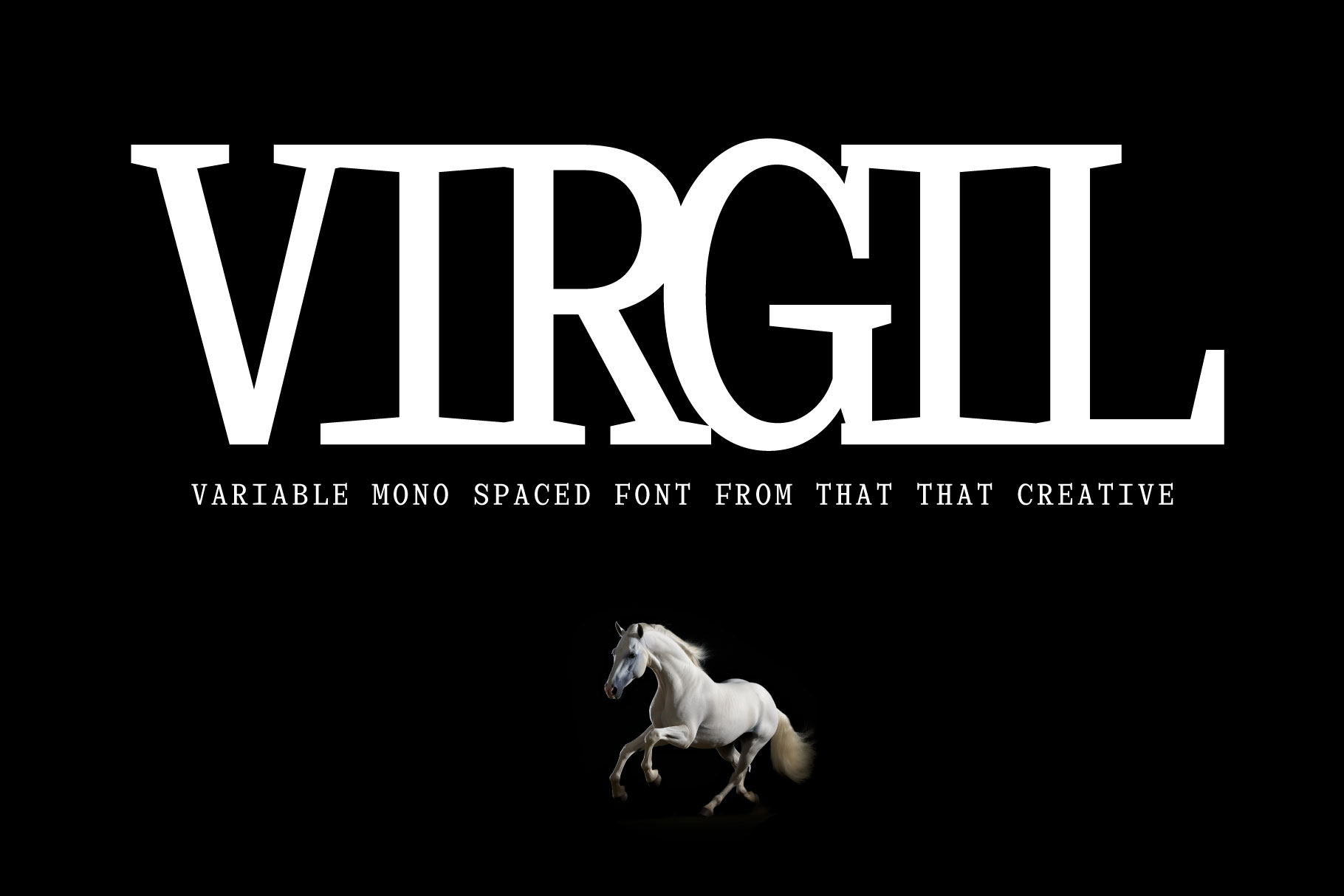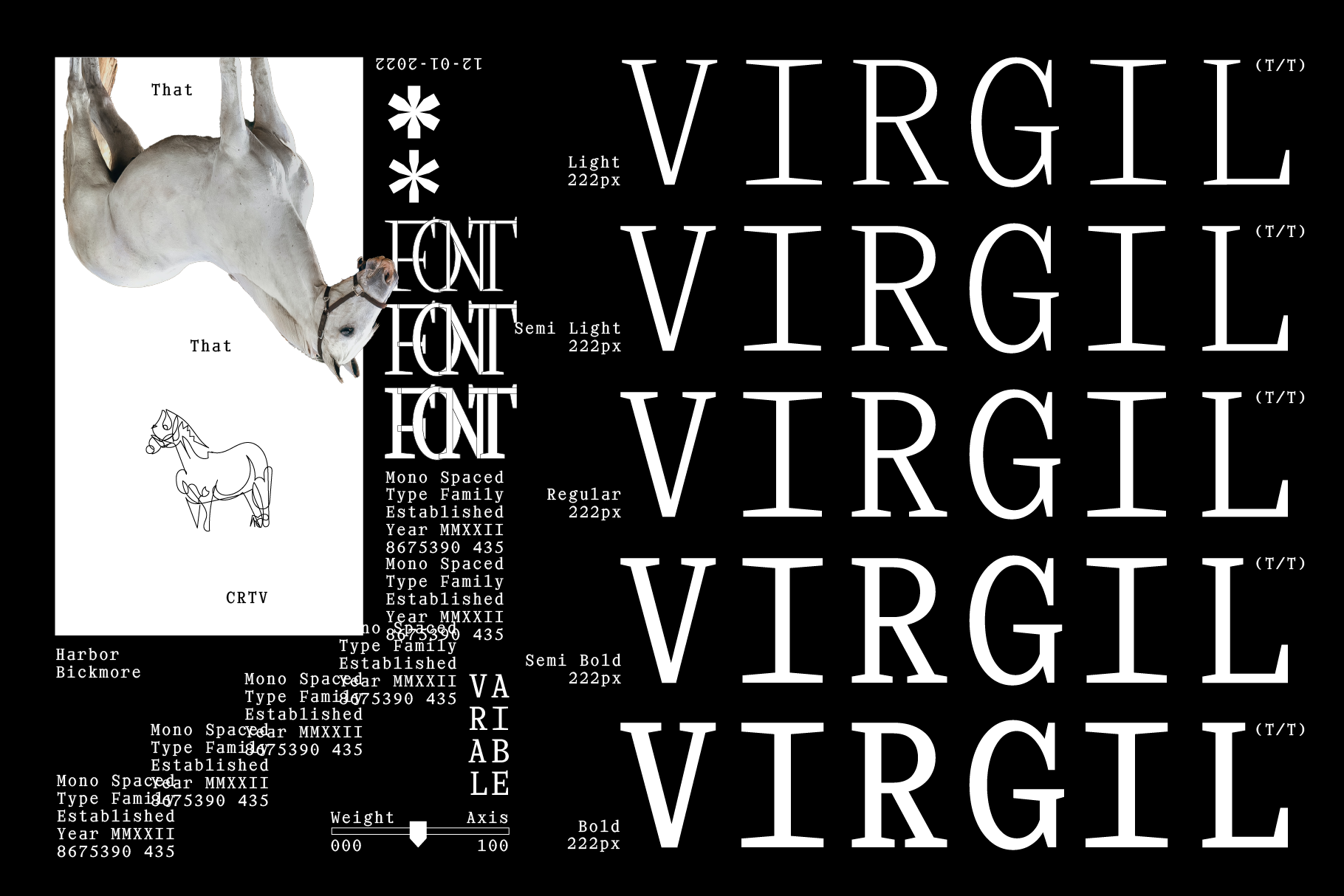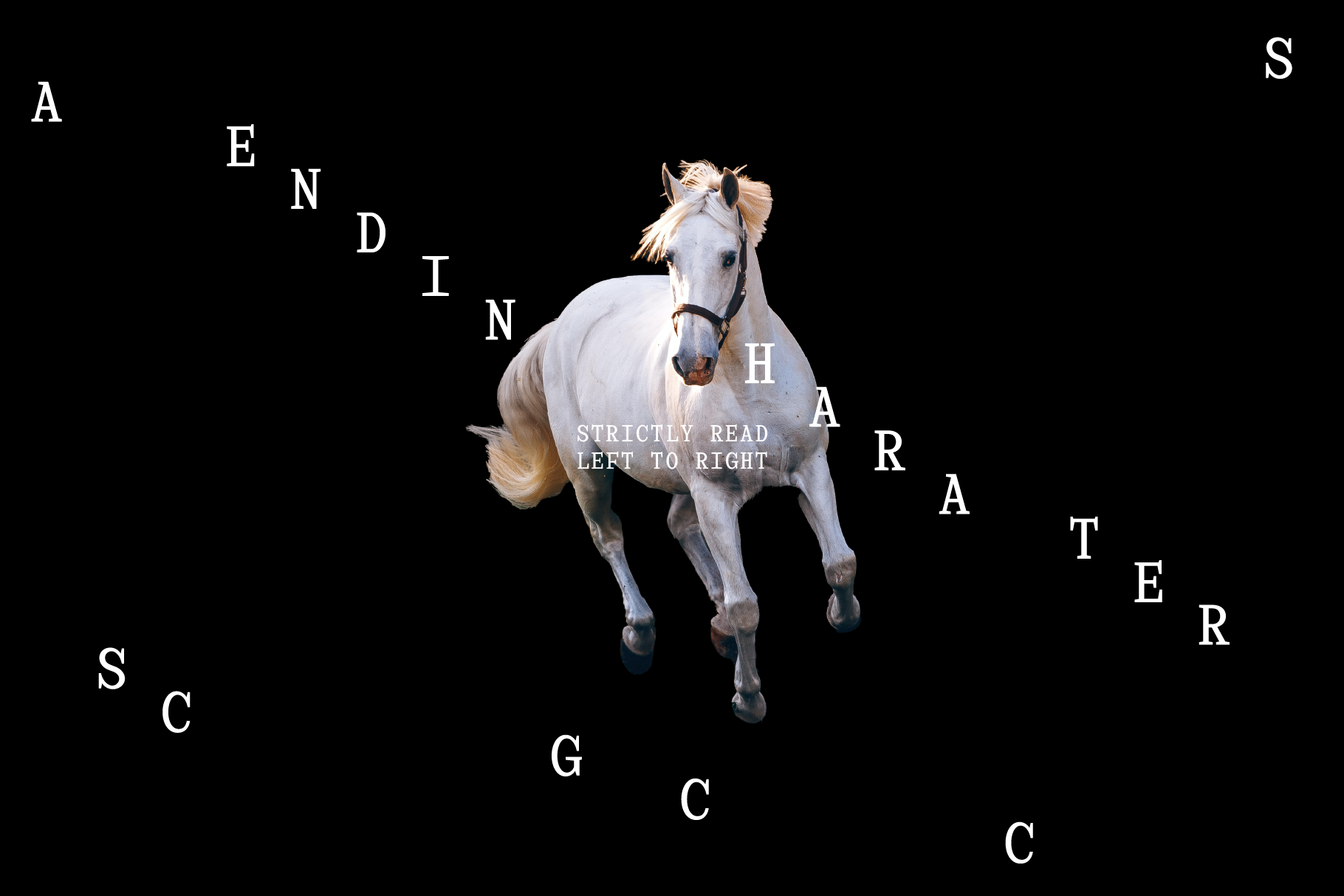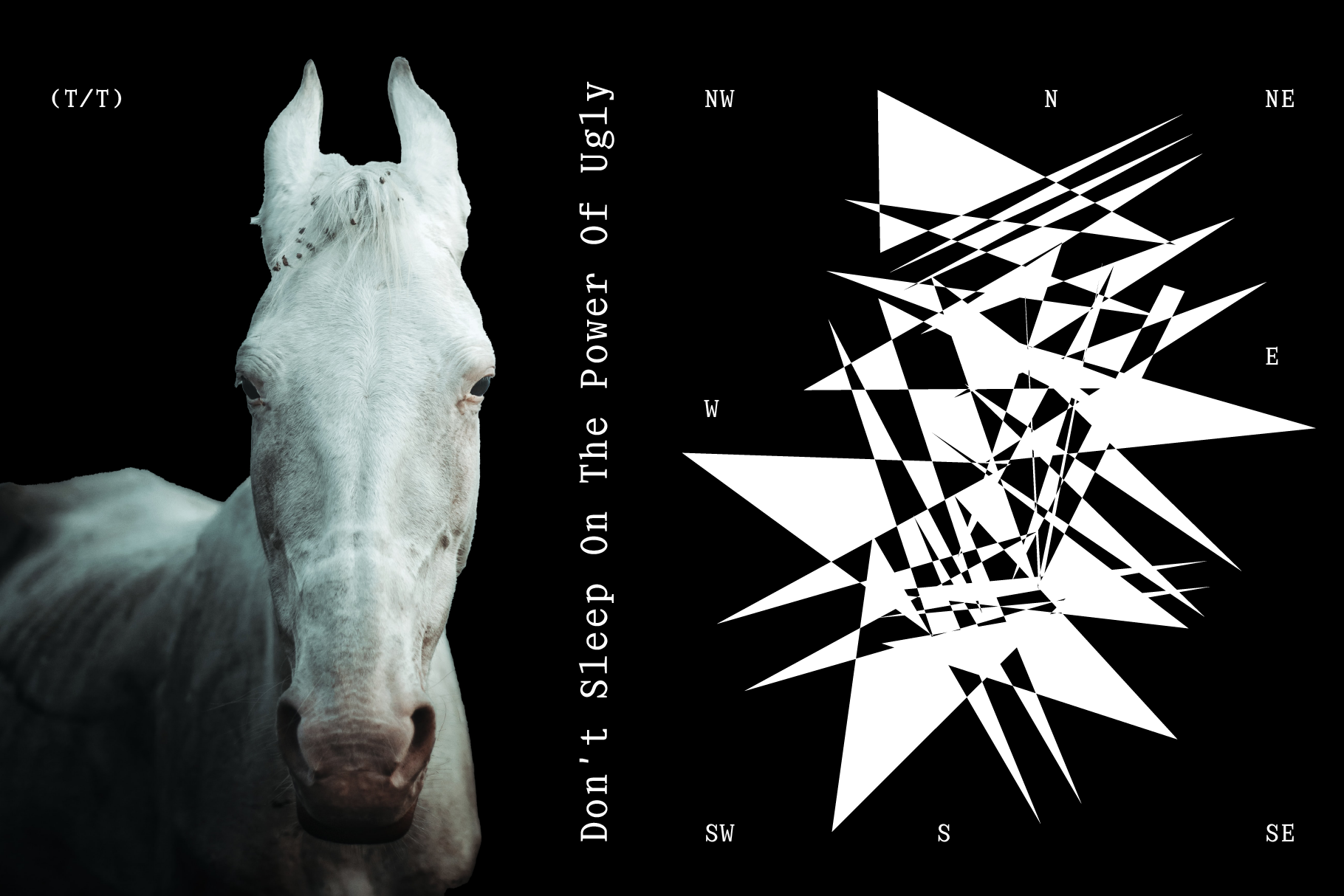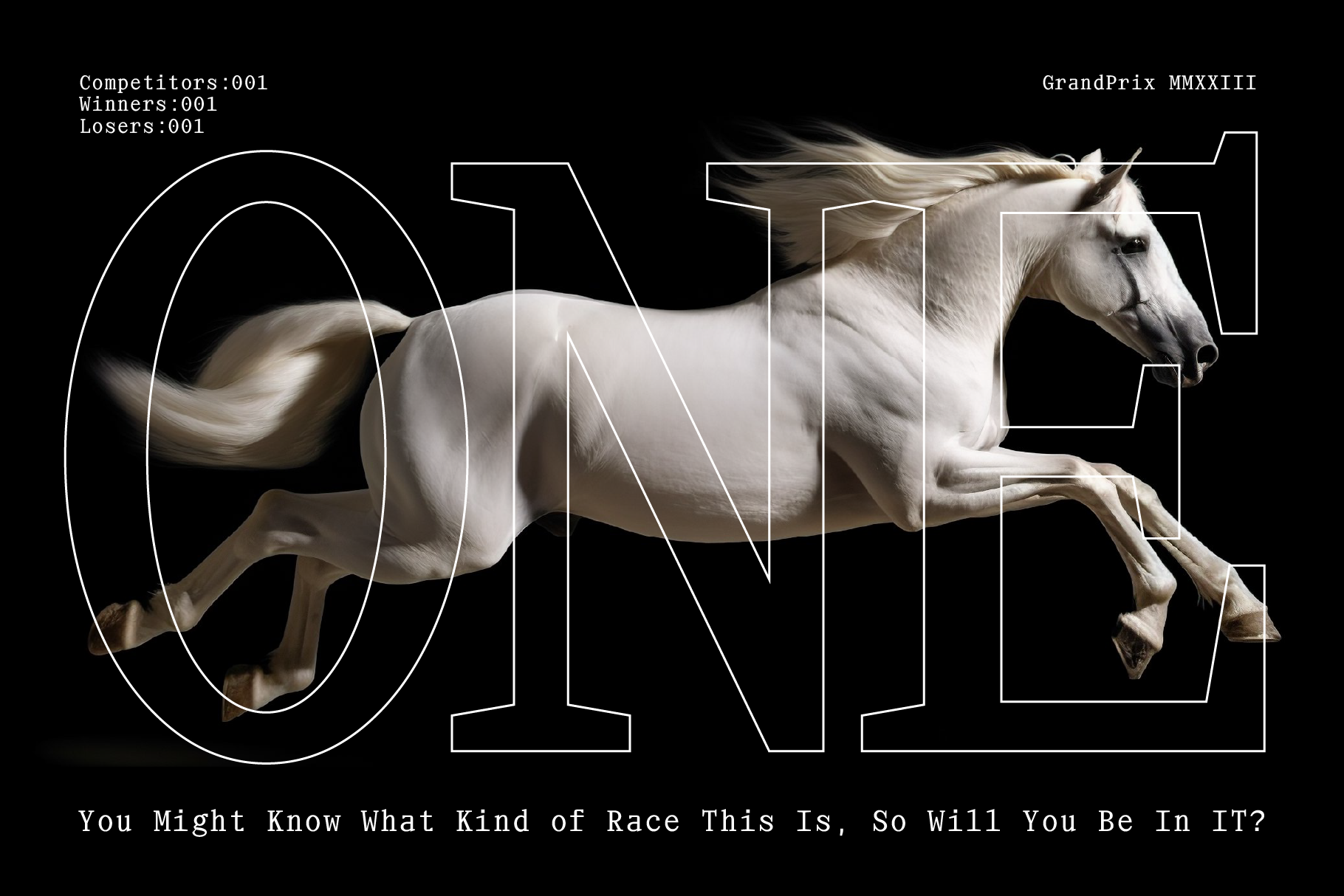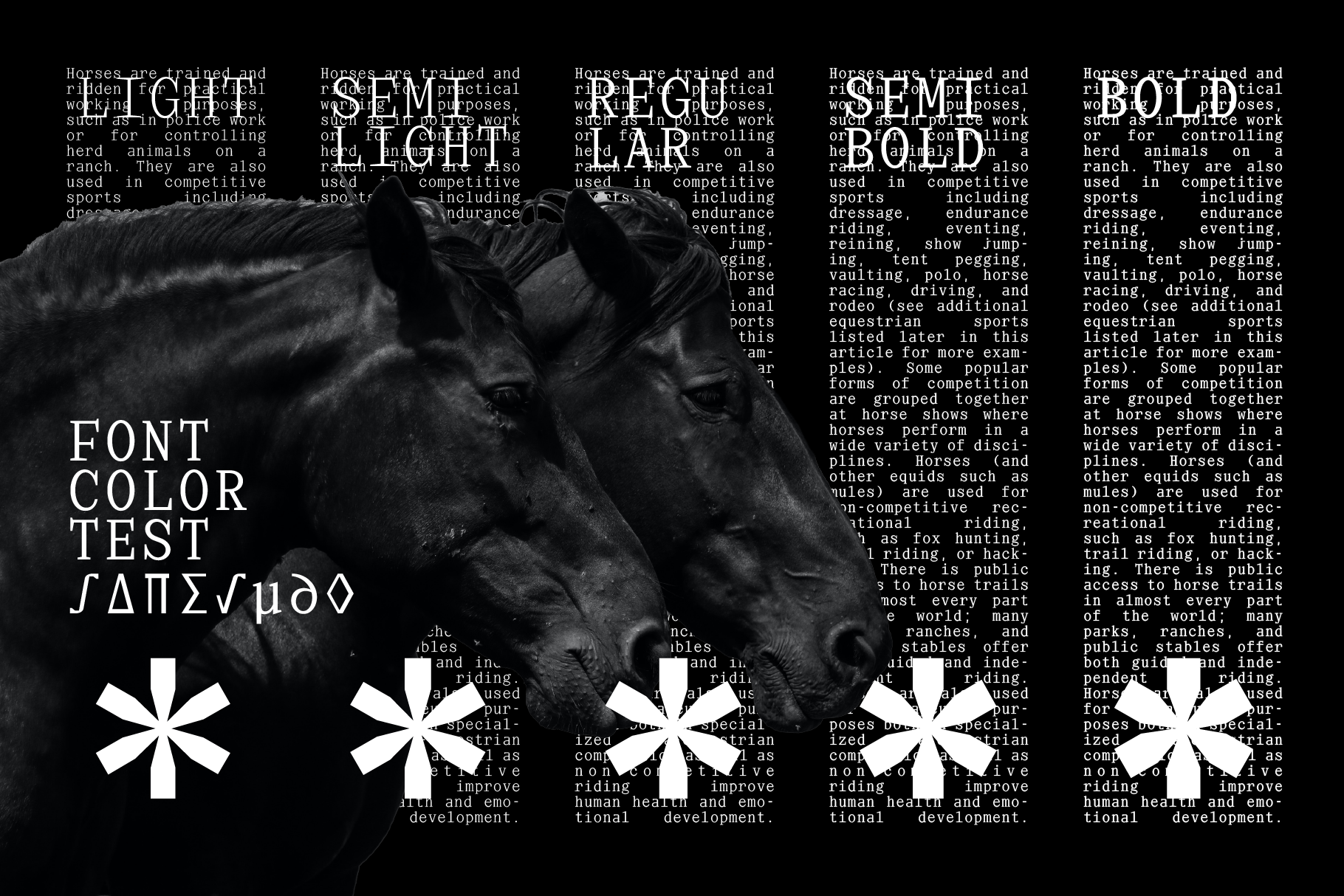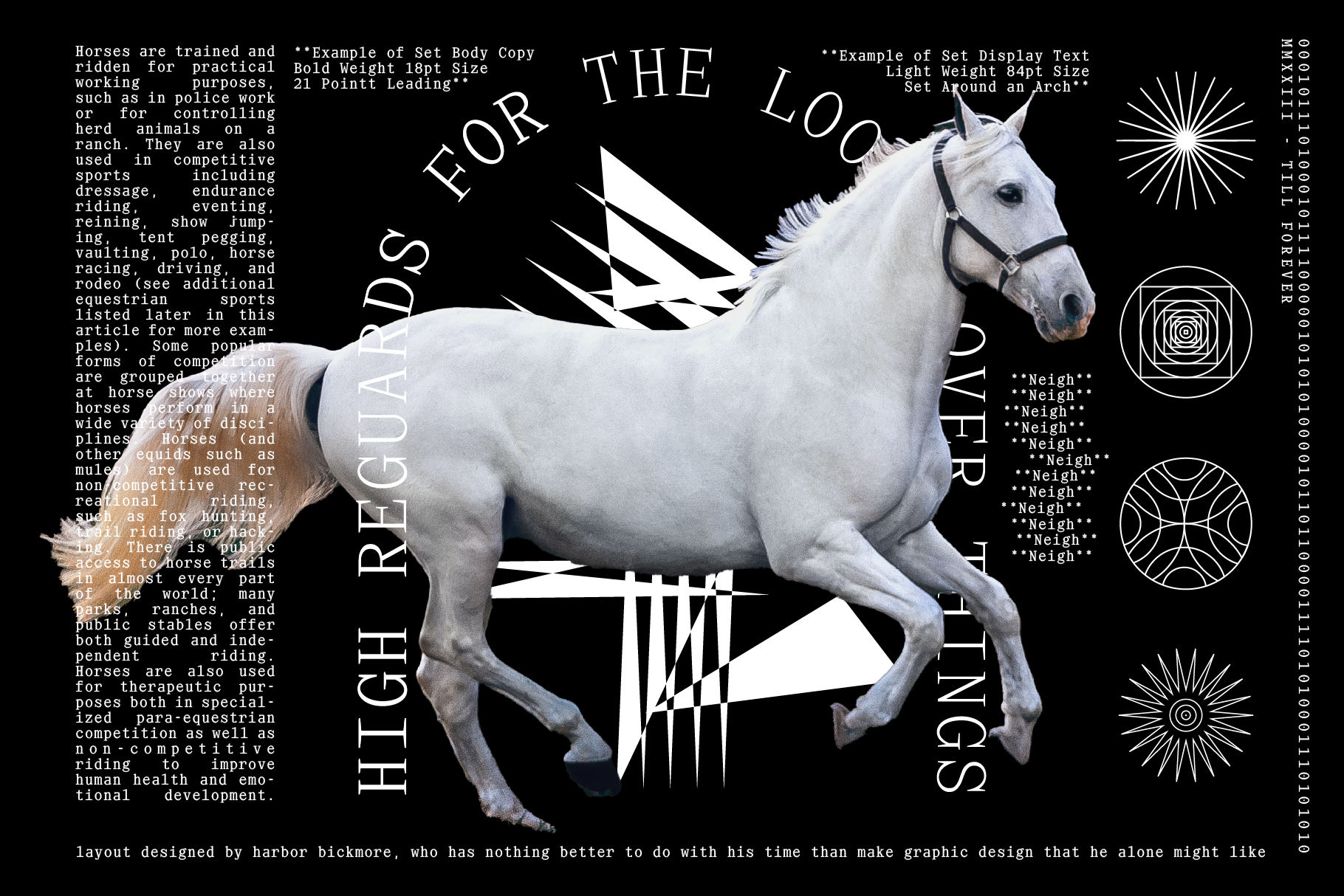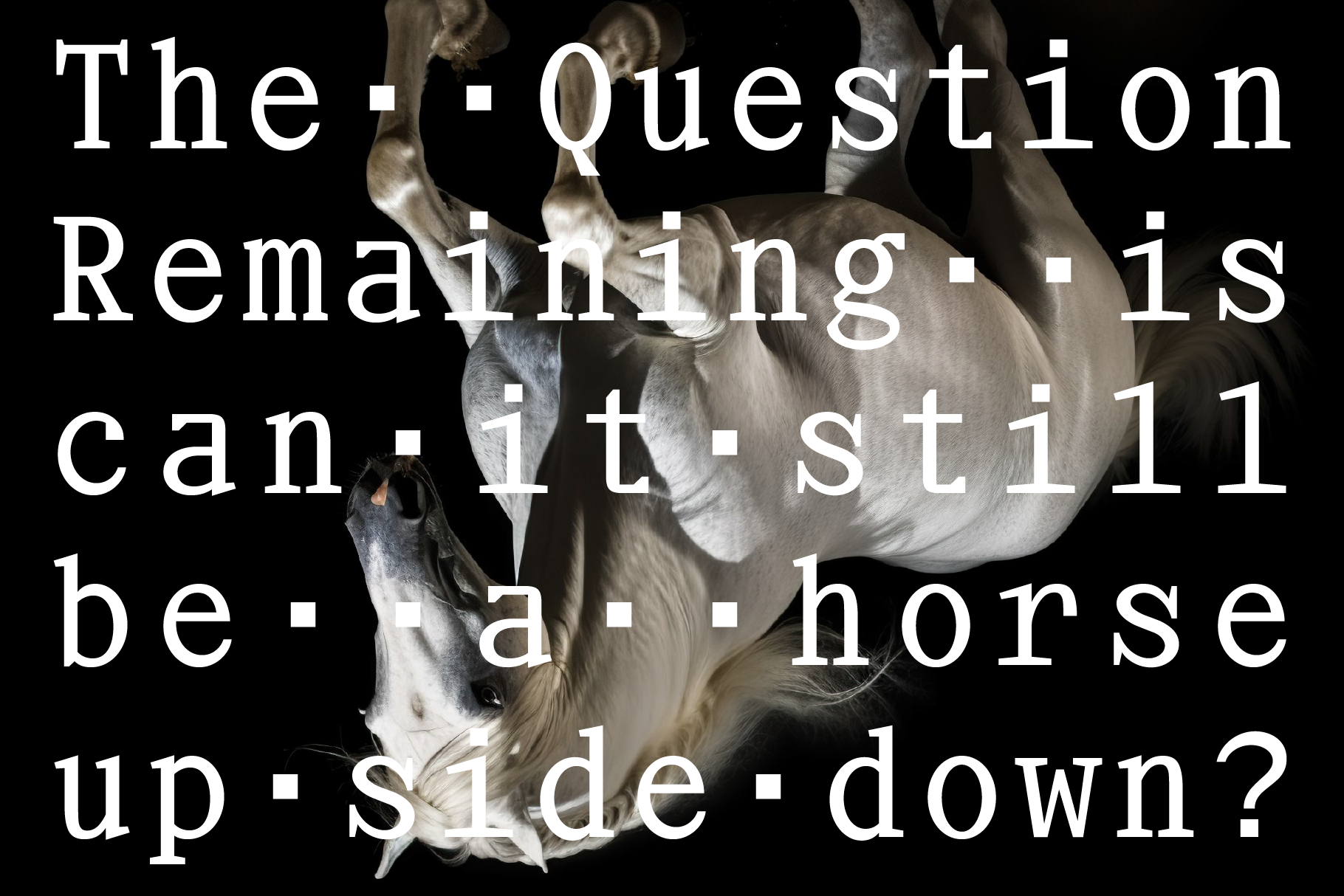
Virgil Mono Variable Collection
Virgil Mono
Light SemiLight Regular SemiBold BoldVirgil Mono
Light SemiLight Regular SemiBold BoldVirgil is a variable monospaced typeface that is harsh, angular, and perfect for contemporary design.